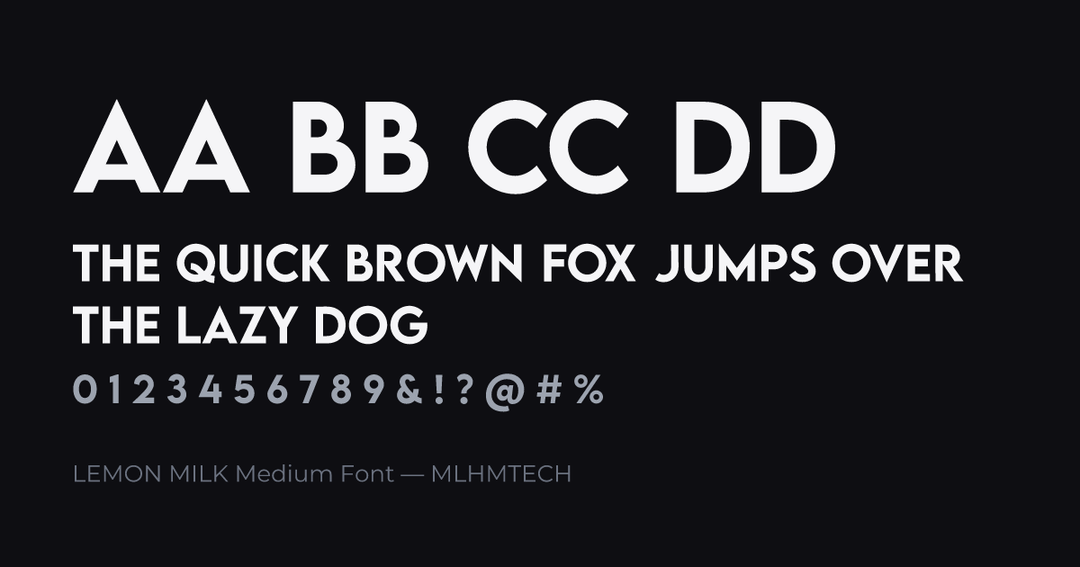
LEMON MILK Medium Font
LEMON MILK Medium is a bold, geometric sans-serif font with a modern, clean look. Ideal for headlines, logos, and branding projects.
LEMON MILK Medium is a popular geometric sans-serif typeface known for its strong, uniform strokes and modern aesthetic. The medium weight strikes a balance between regular and bold, making it versatile for both display and body text in creative projects.\n\nThis OTF file is compatible with most design software and operating systems. Use it to create eye-catching logos, posters, social media graphics, or any project that needs a confident, contemporary typeface. Its clean lines ensure high legibility even at small sizes.\n\nThe font is free for personal and commercial use, making it a great addition to your design toolkit. Simply install the OTF file on your system, and it will appear in your font menu across all applications.